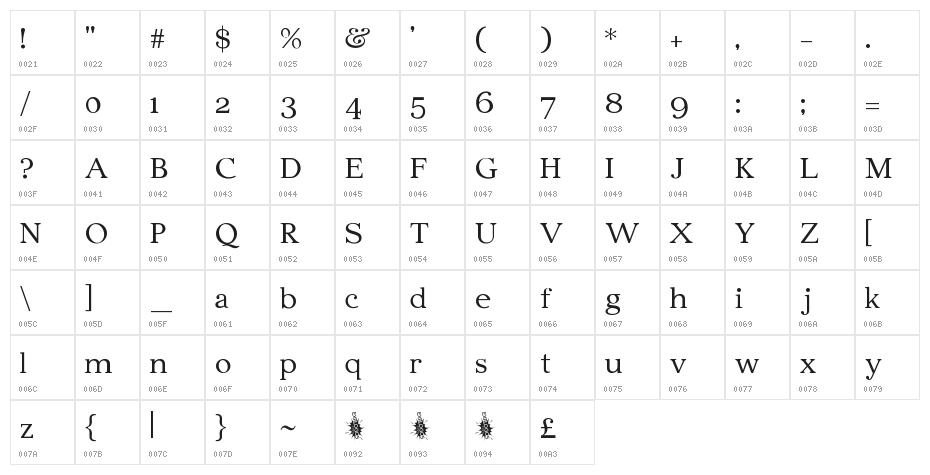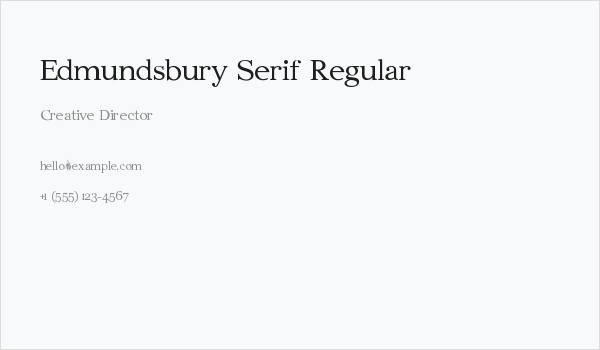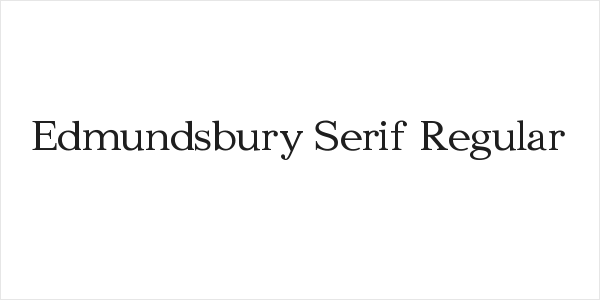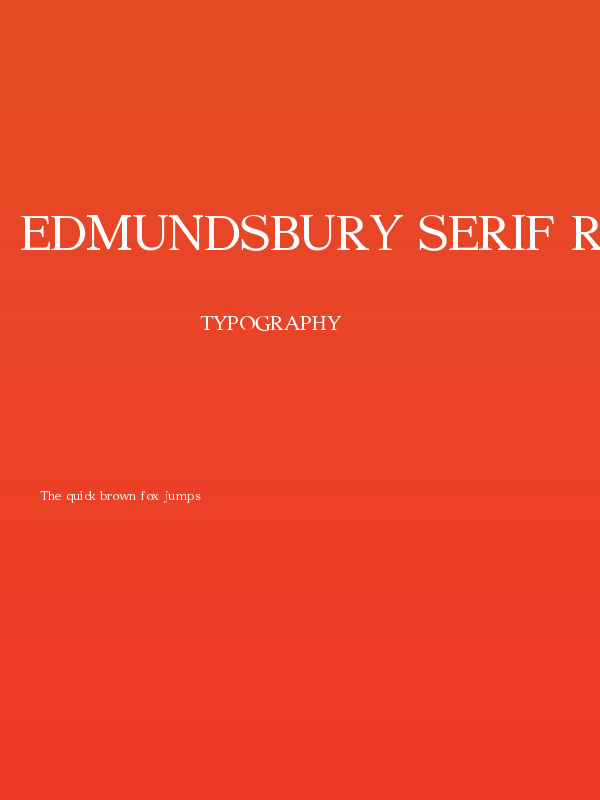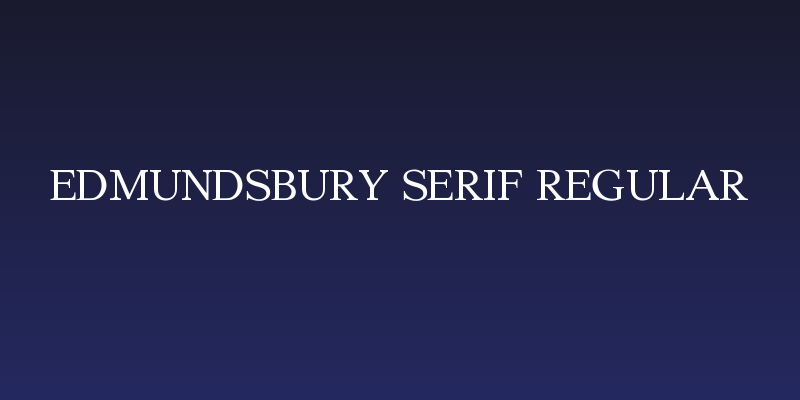
Edmundsbury Serif Regular Font
Edmundsbury Serif Regular Description
This serif font exudes a classic and elegant style, characterized by its refined and balanced letterforms. The uppercase letters are stately with a slight contrast in stroke thickness, while the lowercase letters maintain a harmonious flow. The numerals are clear and well-proportioned, ensuring readability. Special characters are thoughtfully designed to complement the overall aesthetic. The font's structure is traditional yet versatile, making it suitable for a wide range of applications.